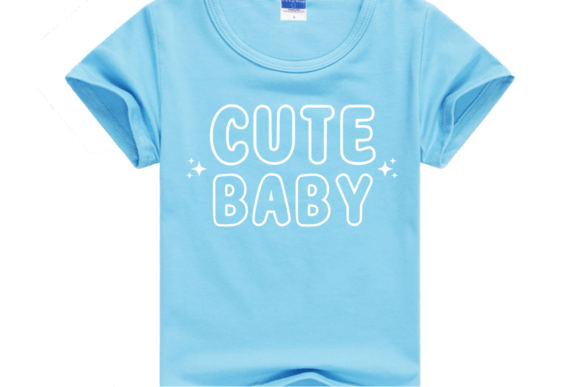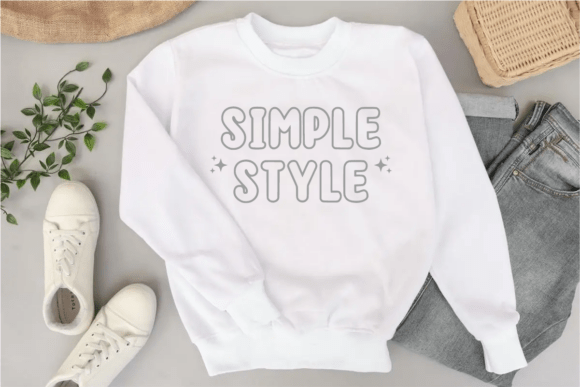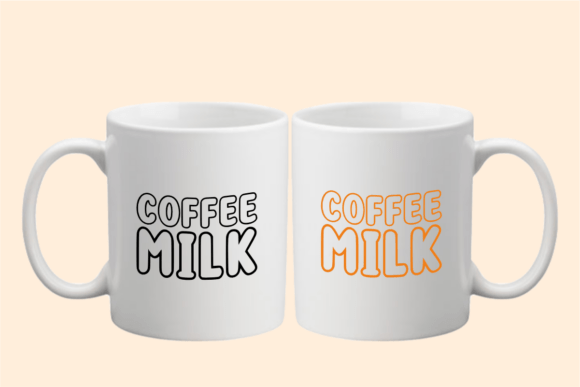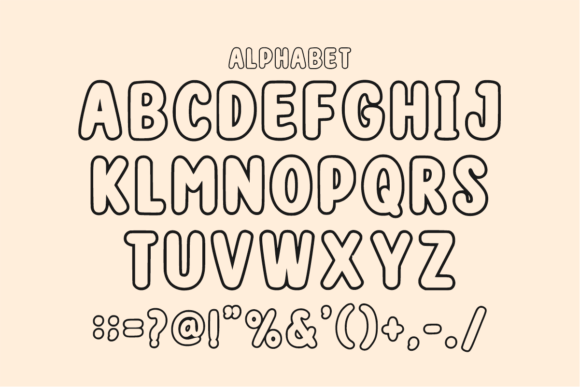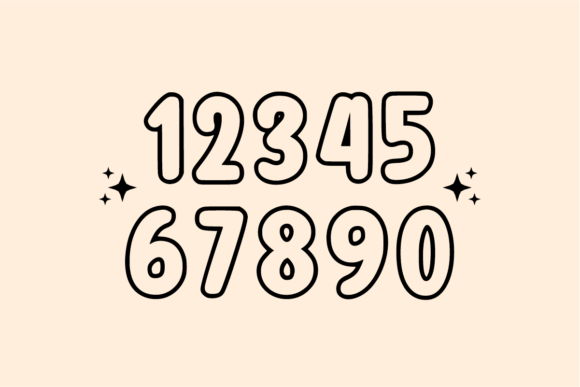
Introduction to Smooth Lines Font
Remember the thrill of creating a colorful poster as a kid, using markers to fill in the lines of a fun font? For many designers, that magical moment sparks a lifelong passion for creative expression. If you’re a designer looking to recapture that excitement and bring a playful touch to your projects, you’re in luck – we’re about to introduce you to the perfect font for the job: Smooth Lines Font.
As a friendly and modern display font, Smooth Lines Font boasts a clean, outlined style with perfectly rounded edges that’s sure to add a lighthearted yet polished feel to any design. With its bold sans-serif shape outlined with a smooth black stroke, this font is ideal for kids’ projects, playful branding, educational printables, crafts, and more – making it a valuable addition to any designer’s toolkit.
Key Features of Smooth Lines Font
- Unique blend of modern and minimalist design elements, perfect for creative projects
- Designed to be easily customizable, with a clean and simple style that adapts well to different creative projects
Honest Review: Smooth Lines Font
As a designer, I’m always on the lookout for high-quality design resources that can elevate my creative projects. The Smooth Lines Font has been a great addition to my collection, and I’m excited to share my honest review.
- ✨ The font’s clean and minimalist design makes it perfect for modern and sleek projects.
- ✨ The font is highly customizable, allowing me to adjust the opacity and size to fit my design needs.
- ⚠️ The font may not be suitable for designs that require a lot of bold or dramatic text, as it can come across as a bit bland in those situations.
Overall, I’m impressed with the Smooth Lines Font. Its versatility and high quality make it a valuable addition to any designer’s toolkit. While it may not be perfect for every project, it’s a solid choice for modern and minimalist designs.
How to Use Smooth Lines Font
Smooth Lines Font is a high-quality design resource ideal for creative projects requiring a touch of elegance and sophistication. With its transparent background, this font is perfect for adding a subtle yet striking element to your designs.
Tips for Getting the Most Out of Smooth Lines Font
To get the most out of Smooth Lines Font, use it in combination with other design elements, such as shapes and textures, to create a visually appealing design. Experiment with different font sizes and colors to achieve the desired effect.
Smooth Lines Font is ideal for:
- Social media graphics and advertisements